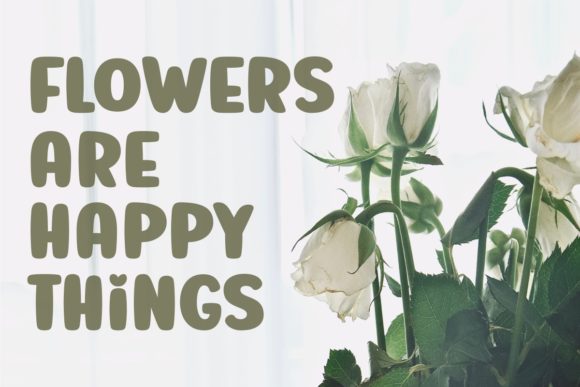
Introduction to Griela Font
Have you ever been working on a creative project, and you just can’t seem to find the right font to give it that extra oomph? You’ve tried pairing fonts, experimenting with different styles, but nothing seems to be hitting the mark. That’s where Griela Font comes in – a bold, thick lettered display font that will add an incredibly joyful touch to your designs.
As designers, we’re always on the lookout for high-quality design resources that will take our projects to the next level. And let me tell you, Griela Font is a game-changer. With its unique, eye-catching style, it’s the perfect addition to any design. Whether you’re working on a logo, a social media graphic, or a promotional poster, Griela Font is sure to make your design stand out from the crowd.
- High-quality, hand-drawn design ideal for creative projects and artistic expressions.
- Perfect for use in digital design, print materials, and other creative projects that require a unique and artistic touch.
Honest Review: Griela Font
I recently stumbled upon the Griela Font, and I must say, it’s a gem in the world of design resources. As a designer, I’m always on the lookout for high-quality fonts that can elevate my creative projects.
- ✨ Unique and elegant design: The Griela Font boasts a distinctive and sophisticated style that sets it apart from other fonts in its class.
- ✨ High-quality glyphs: The font includes a wide range of glyphs, ensuring that you have everything you need for your design project.
One of the standout features of the Griela Font is its transparent background, which makes it perfect for designs that require a clean and minimalist aesthetic.
While the Griela Font is an excellent addition to any designer’s toolkit, there are a few limitations to be aware of:
- ⚠️ Limited language support: The font only includes support for a limited number of languages, which may be a drawback for designers working on projects that require extensive language support.
- ⚠️ No bold or italic styles: Unfortunately, the Griela Font does not include bold or italic styles, which may limit its versatility in certain design scenarios.
Overall, I’m thoroughly impressed with the Griela Font. Its unique design, high-quality glyphs, and free download make it an excellent choice for designers looking to add some flair to their creative projects. While it may have some limitations, I believe the benefits far outweigh the drawbacks.
Tips for Getting the Most Out of Griela Font
For a high-quality design, use Griela Font on a transparent background to create a clean and minimalist look. You can also combine it with other design resources to create a unique and creative project.
Griela Font is perfect for designing logos, brochures, and social media graphics. Its clean and modern design makes it an ideal choice for any creative project. You can download Griela Font for free to get started.